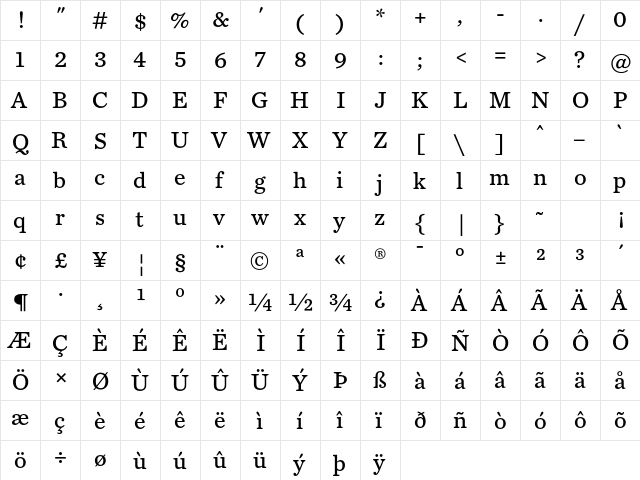
Chronicle Text G4 Roman
| Foundry | Hoefler & Frere-Jones |
| Designer | Hoefler & Frere-Jones |
Design Context for Chronicle Text G4 Typeface
Chronicle Text G4 offers clean, dependable letterforms without strong stylistic allegiance, making it a practical choice for designers who need flexibility.